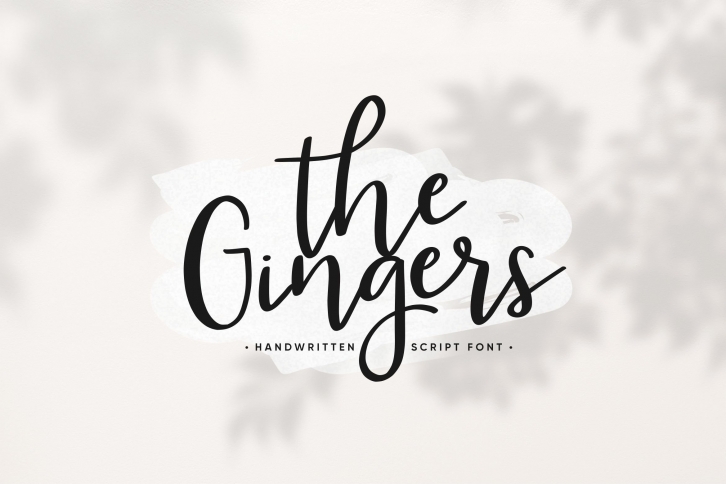
The Gingers Handwritten Script is a gorgeous font that was realeased on October 26, 2021. The font can be used in many style contexts and design environments. Perfect for invitations, magazines, websites, logos, and more! It was designed by Paily Studio and the file size is 21.82 MB. Thanks for checking out this font!